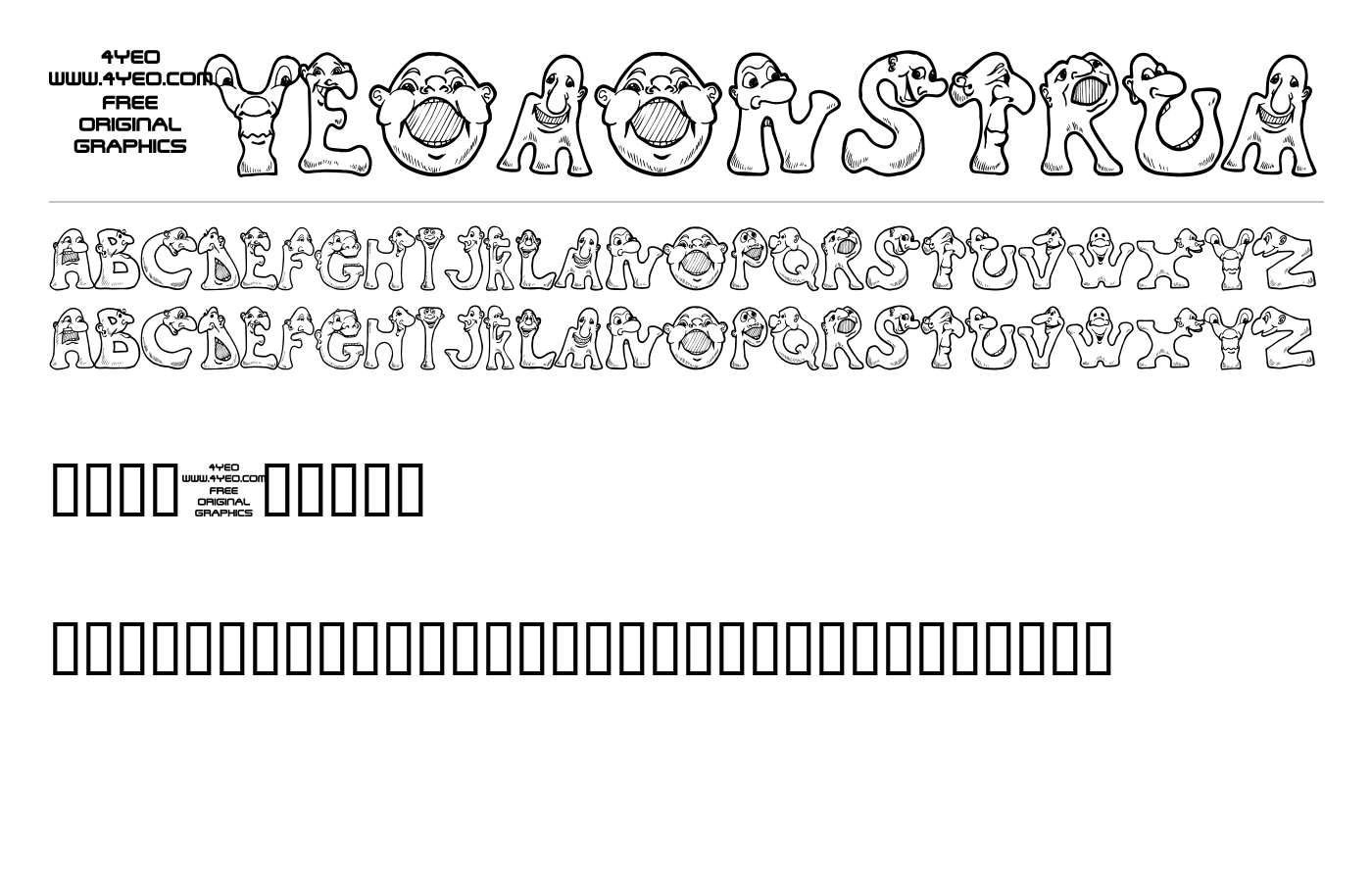
4YEOmonstrum is a playful and whimsical display font featuring quirky, hand-drawn characters that resemble animated monsters. Its irregular shapes and detailed facial features give it a fun and informal personality, making it perfect for creative projects aimed at children or entertainment themes. This unique font works best in eye-catching headlines, posters, and playful branding where a lively and imaginative vibe is desired.
4YEOmonstrum Font
About 4YEOmonstrum Font